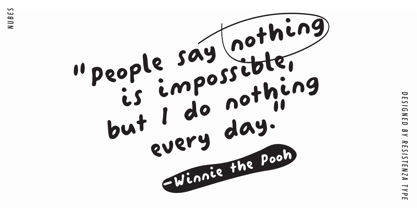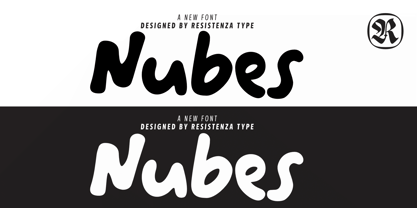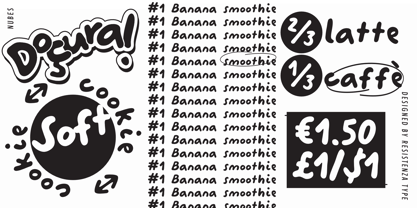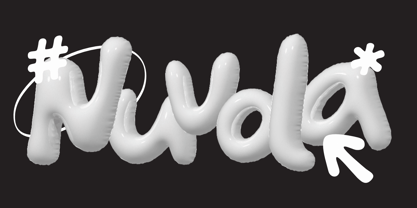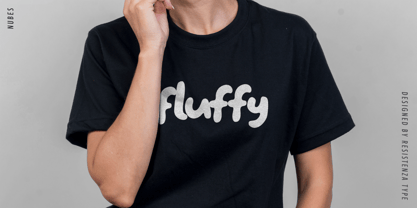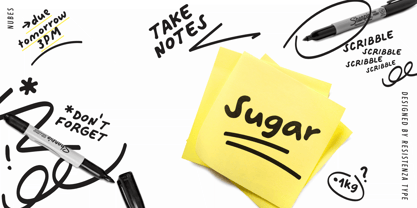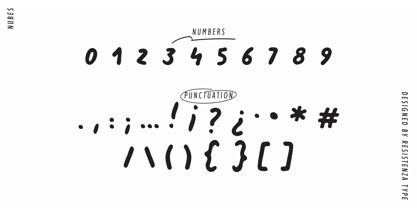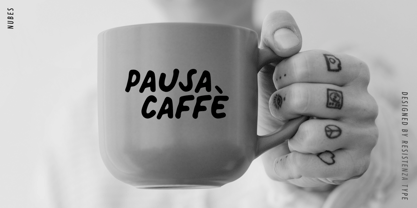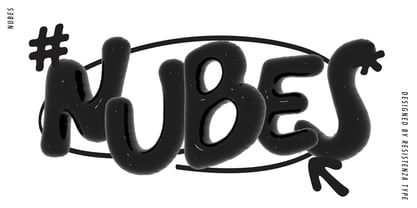
Nubes
by Resistenza
The Nubes Font Family was designed by Giuseppe Salerno, Paco González and published by Resistenza. Nubes contains 2 styles and family package options.
Nubes is a friendly handwritten font designed entirely by hand with a rounded felt-tip pen. Its name — meaning “clouds” in Spanish — perfectly reflects its soft, airy shapes and smooth, flowing rhythm. Each letter drifts effortlessly across the page, capturing the natural warmth of handwriting with a gentle, human touch. This casual script blends simplicity with personality — easy to read, yet full of expression. Its rounded forms make it ideal for branding, packaging, quotes, and social media graphics that call for an approachable, handmade feel. Nubes includes more than 400 glyphs and supports all Latin alphabets, offering broad multilingual coverage for designers working across languages. Whether you’re creating an inviting logo, a heartfelt note, or a cozy handmade aesthetic, Nuvola brings a breezy sense of lightness and sincerity to your typography — like a cloud floating across the page.